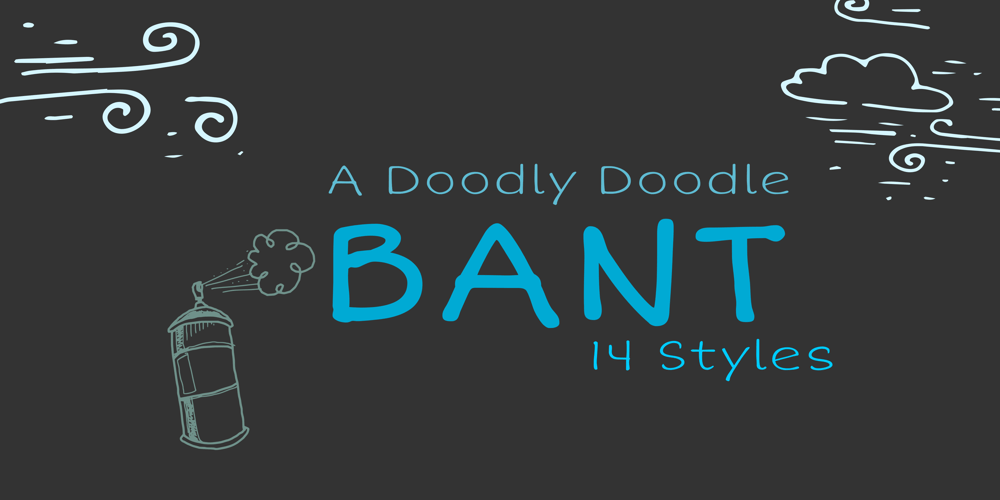
Bant Font Family was designed by Ahsan Ahmedzai and published by Kufic Studio. Bant contains 13 styles and family package options. Bant – A modern comic font that compliments any sort of graphic and web design. A doodly doodle font, this font is perfect for comics, doodle, whiteboard animation, branding, wedding invitations, magazines, business cards, quotes, posters, and websites.The complete font set includes;Bant will bring a unique and comic look to your overall design, as any typeface is a major part of the design.Kufic Studio is a platform that provides professional and high-quality designs & fonts to fill the gap that has been missing in the market.